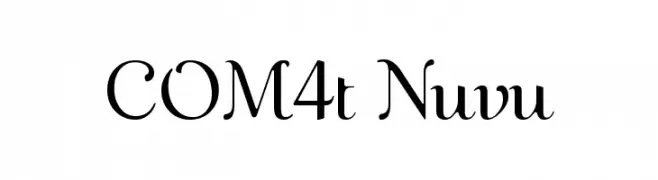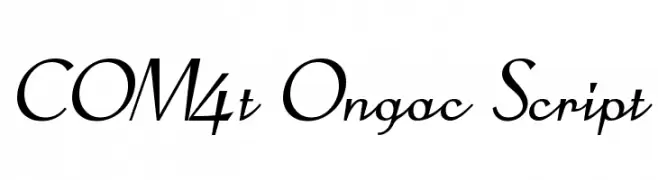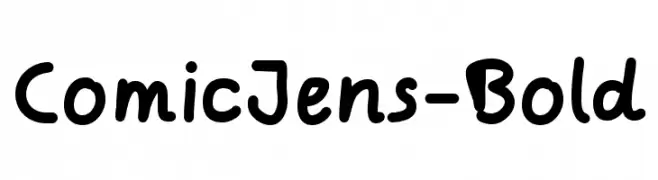
A bold, playful handwritten font with thick, rounded strokes.
A playful, casual handwritten font with smooth curves and a friendly appearance.
Expressive, abstract handwritten script with decorative flair.
Hand-drawn doodle font with holiday and summer-themed icons.
Hand-drawn doodle font with playful food and object icons.
A playful, handwritten font with uneven strokes and a whimsical style.
A decorative and abstract script with bold, flowing symbols.
An edgy, spiky font with a gothic, decorative style.
A bold, angular font with sharp edges and geometric elements.
A playful, whimsical handwritten font with looping, flowing letterforms.
A playful, bold font with rounded, bubbly characters and a whimsical style.
A bold, dripping font with a playful and creative style.
A playful, rounded handwritten font with smooth curves and a casual style.
A bold, playful font with thick, rounded characters and a bubbly appearance.
A bold, expressive serif font with playful curves and strong presence.
Whimsical zodiac-themed pictorial display font.
A modern, geometric font with rounded edges and a sleek, minimalistic design.
A whimsical, vintage-style font with bold serifs and playful character shapes.
A whimsical and artistic font with playful curves and varying stroke widths.
Icon-based decorative font with housing and lifestyle motifs.
A playful, hand-drawn font with a whimsical and informal style.
Cartoonish, hand-drawn font made of expressive human head illustrations.
An anatomical dingbat font with detailed human body illustrations.
A classic, elegant serif font with a humanistic, calligraphic influence.
An elegant humanistic cursive font with dynamic serifs and flowing letterforms.
A traditional blackletter font with intricate, angular designs and a historic feel.
A bold, intricate Blackletter font with ornate and angular letterforms.